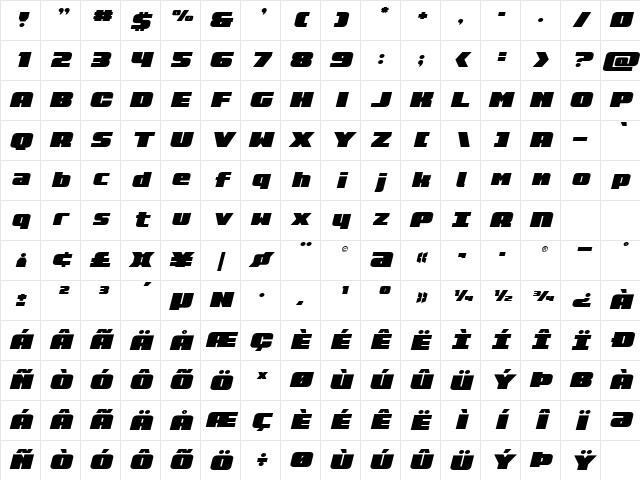
Rapid Response LC Semi-Italic is a composed and adaptable typeface that performs quietly and consistently across a wide range of design contexts. The slanted form adds forward momentum and visual energy.